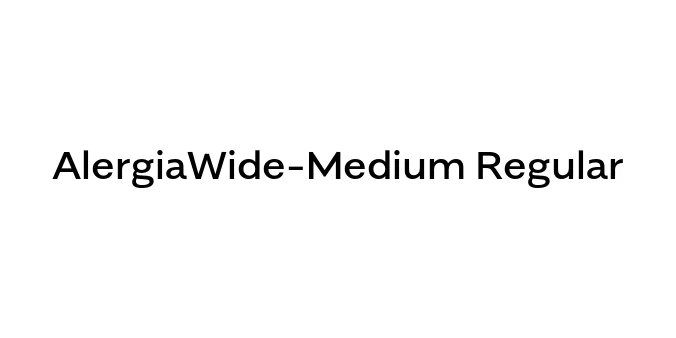
AlergiaWide-Medium Regular
Designed by Mateusz Machalski
Alergia Wide is a sophisticated sans-serif typeface family designed by the renowned Polish typographer Mateusz Machalski. This typeface is part of a larger superfamily that seeks to bridge the gap between geometric precision and humanistic warmth. The Wide variant is specifically engineered to provide an expansive, airy feel, making it a standout choice for high-end branding and contemporary graphic design projects that require a sense of space and luxury.
The Medium Regular weight of the Alergia Wide family provides a balanced stroke width that ensures maximum legibility across various resolutions. Its clean lines and distinctive, open apertures give it a modern character that feels both professional and approachable. This font is particularly effective for designers looking to create a unique visual identity that departs from more traditional, narrow sans-serif choices while maintaining a high level of technical performance in both print and digital media.
AlergiaWide-Medium Regular Best Uses
Ideal for creating distinctive logos and high-impact corporate identities.
Perfect for sophisticated magazine headlines and minimalist layout titles.
Well-suited for modern website hero sections and clean navigation menus.
Excellent for luxury brand campaigns and eye-catching poster designs.